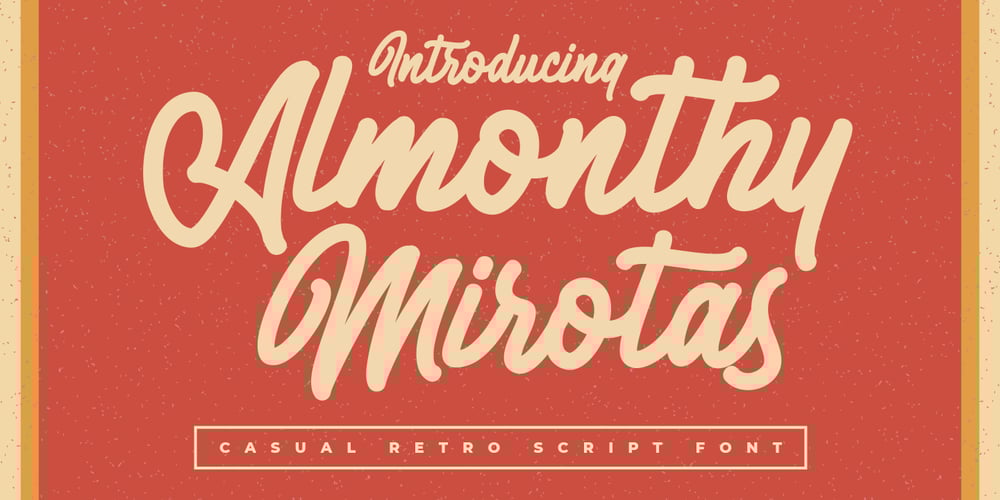
Almonthy Mirotas
Almonthy Mirotas font
Almonthy Mirotas Font Family was designed by Arif Dwi and published by Kotak Kuning Studio. Almonthy Mirotas contains 1 styles and family package options. Introducing Almonthy Mirotas, a casual retro script font. It has a unique and different style and will give your design a classic and retro touch.Almonthy Mirotas is perfect for logos & branding, photography, watermark, social media posts, advertisements, invitation, product designs, label, stationery, wedding designs, product packaging, special events or anything that need handwriting taste.I highly recommend using a program that supports OpenType features and Glyphs panels such as Adobe Illustrator, Adobe Photoshop CC, Adobe InDesign, or CorelDraw, so you can see and access all Glyph variations.We hope you enjoy the font, please feel free to comment if you have any thoughts or feedback. Or simply send me a PM or email me at kotakkuningstudio@gmail.com. Thanks for purchasing and have fun!